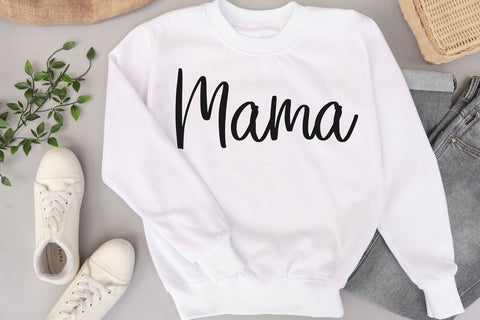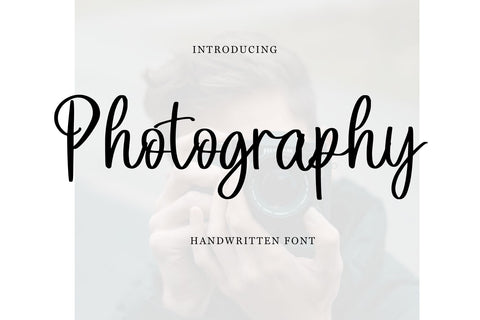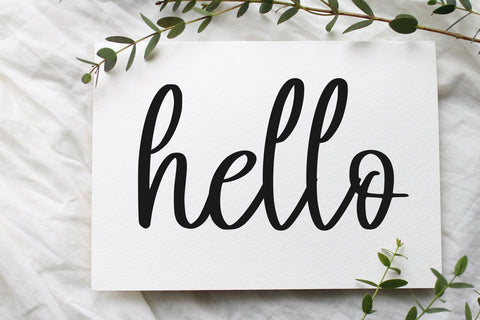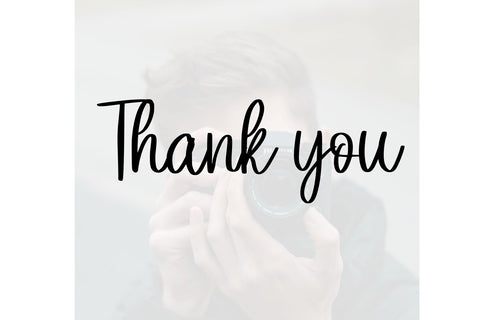
Photography
Photography is  a stylish and adaptable typeface crafted to enhance visual storytelling. Featuring refined curves and a contemporary appeal, this font is perfect for branding, logo design, and creative projects. Its elegant structure and professional aesthetic make it an ideal choice for designers seeking a balance between sophistication and readability.